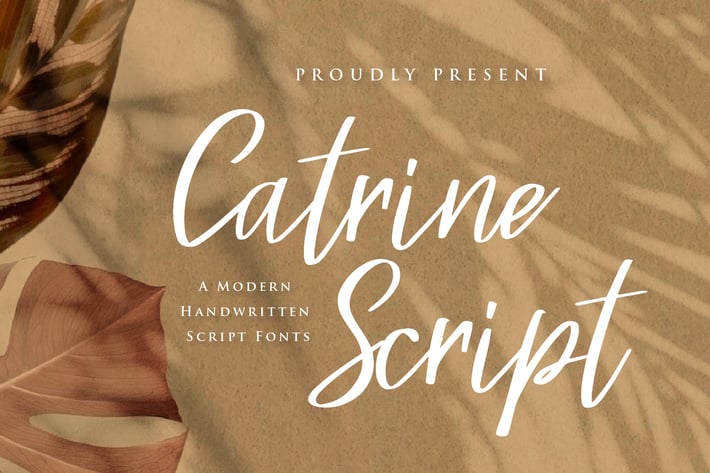
Catrine Script - Handwritten Script fonts
Catrine Script is a Handwritten Script font, will be suitable for any projects such as branding, promotional ads, quotes design, merchandise, social media and much more. make your work or your business to high level!!! special events, and all your other lovely projects that need beautiful handwriting taste.
- Uppercase & Lowercase
- Numerals
- Punctuations (OpenType Standard)
- Accents (Multilingual Characters)